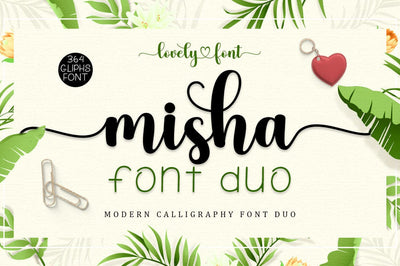
Misha Font Duo
Misha Font Duo is a hand-drawn brush font made with brush and ink.
Misha Font Duo This typeface is ideal for use in bold watercolor designs or handwritten styles, such as blog titles, posters, wedding elements, t-shirts, clothing, book covers, business cards, greeting cards, branding, cafe/restaurant signs. merchandising, etc.